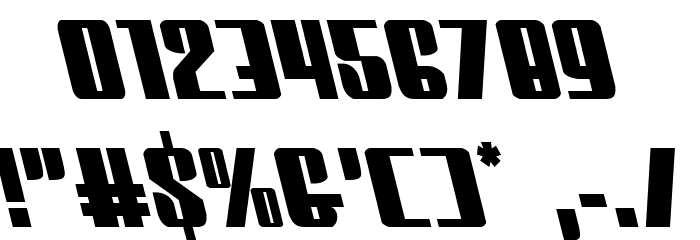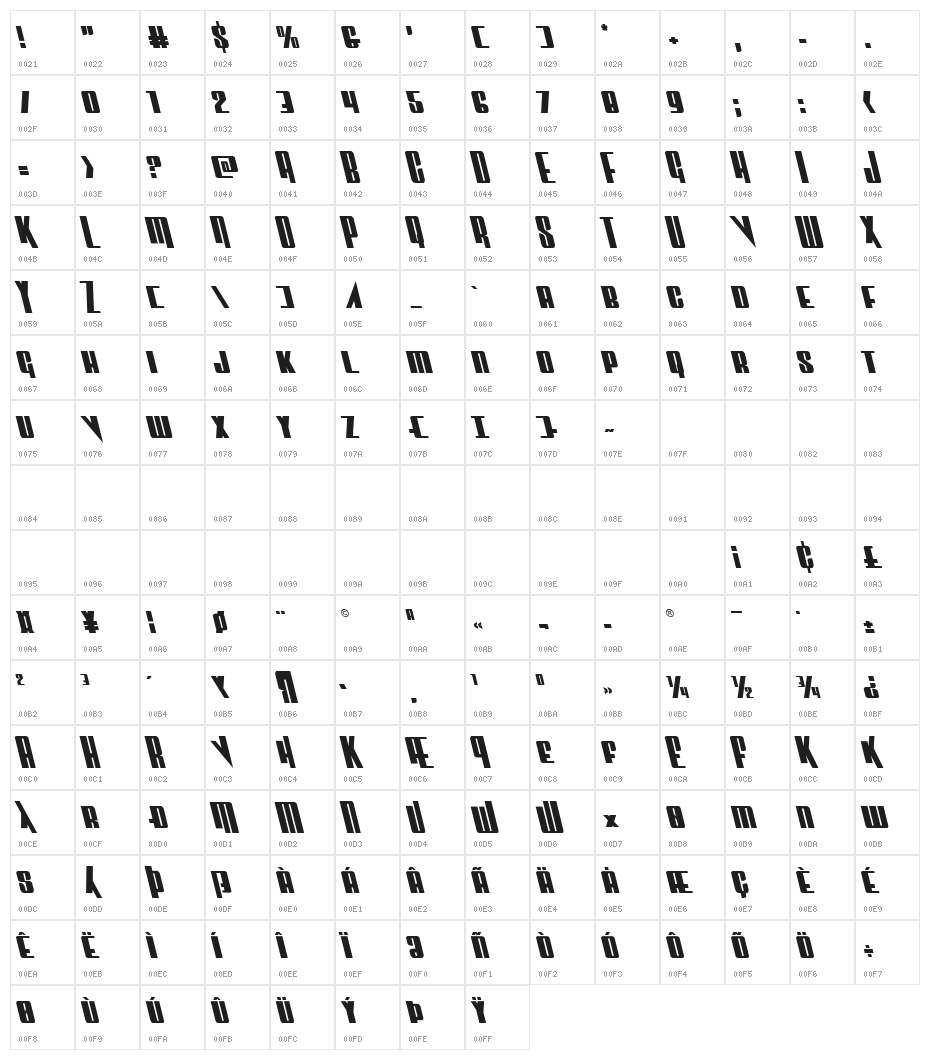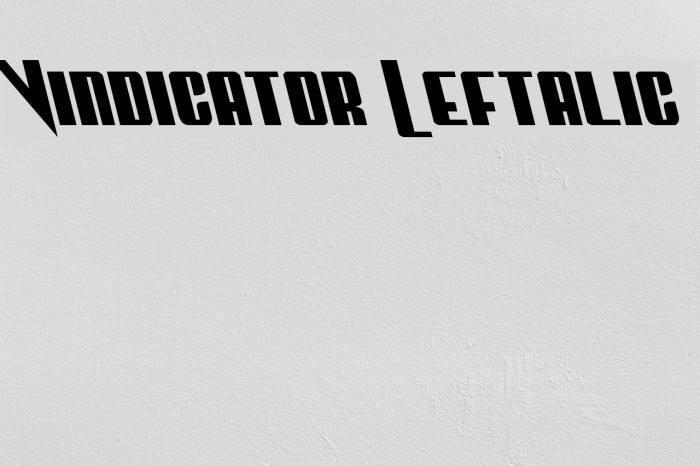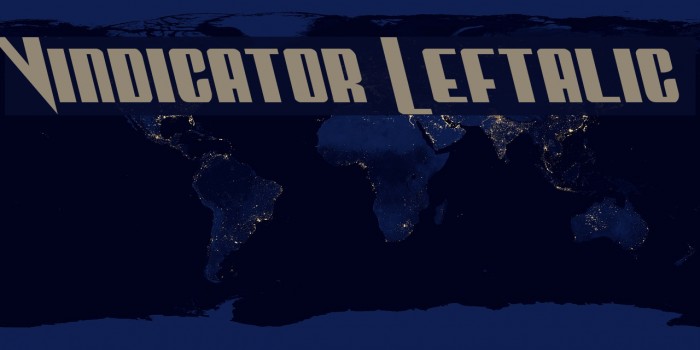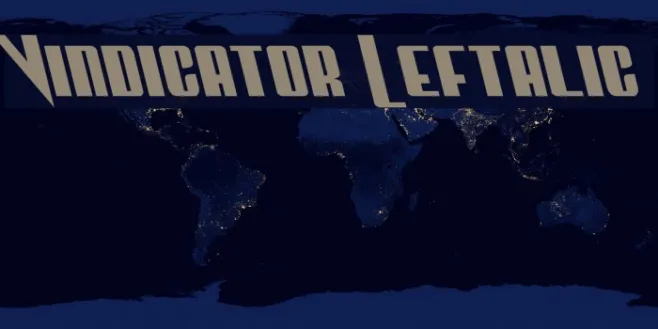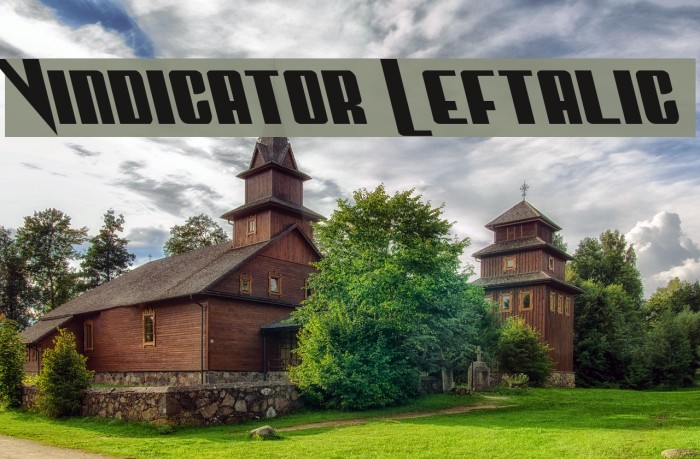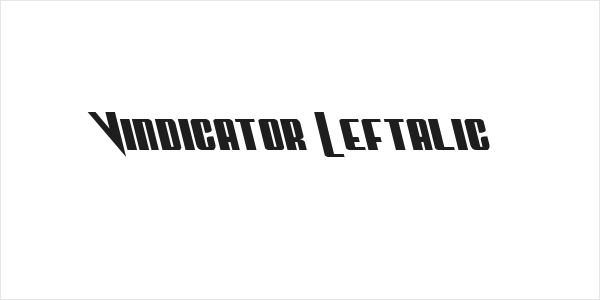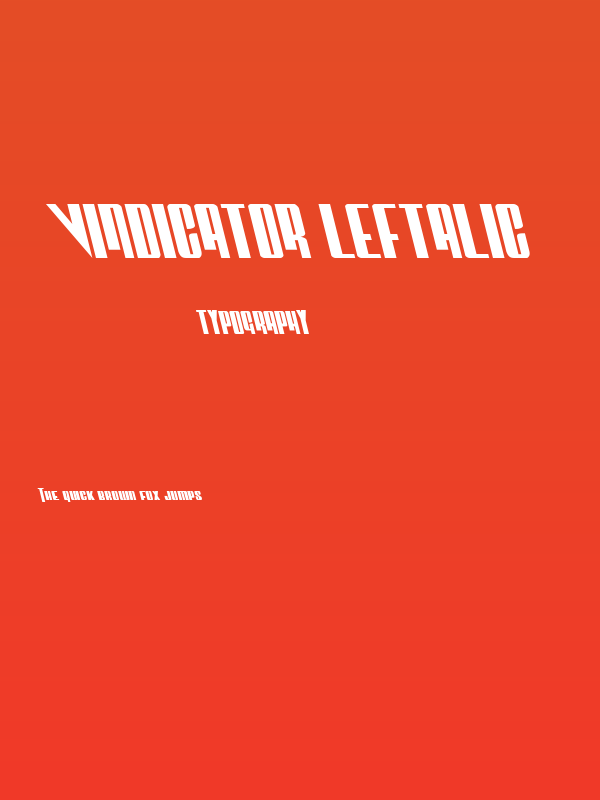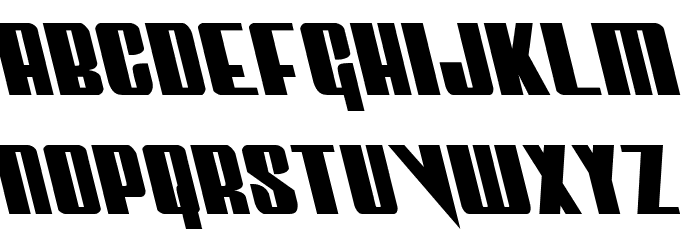
Vindicator Leftalic Font
Vindicator Leftalic Description
This font features a bold and dynamic style with a distinctive left-leaning slant, giving it a sense of movement and urgency. The characters are wide and blocky, with sharp angles and clean lines that create a strong visual impact. The uppercase letters are particularly striking, with a consistent height and width that enhances readability. The numbers and special characters maintain the same boldness and angular design, ensuring uniformity across all text. This font's unique style makes it ideal for attention-grabbing headlines and impactful designs.
Proposed ProjectsIdeal for sports branding, action movie posters, and dynamic advertising campaigns.